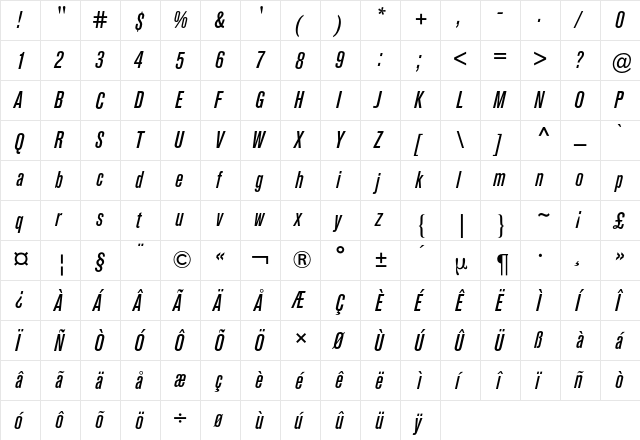
Akzidenz-Grotesk Condensed BQ Regular Font Preview
Design Context for Akzidenz-Grotesk Condensed BQ Typeface
Akzidenz-Grotesk Condensed BQ takes a clean, functional approach — its unadorned letterforms prioritise legibility and work reliably across screen and print environments. The condensed width makes it efficient for tight spaces without sacrificing legibility.
Font Pairing: Works well alongside a characterful serif or display font that can carry the expressive load while Akzidenz-Grotesk Condensed BQ handles the functional copy.
Pro Tip: Use Akzidenz-Grotesk Condensed BQ tightly set in headlines and banners — its condensed proportions make it ideal for maximum impact in minimum horizontal space.